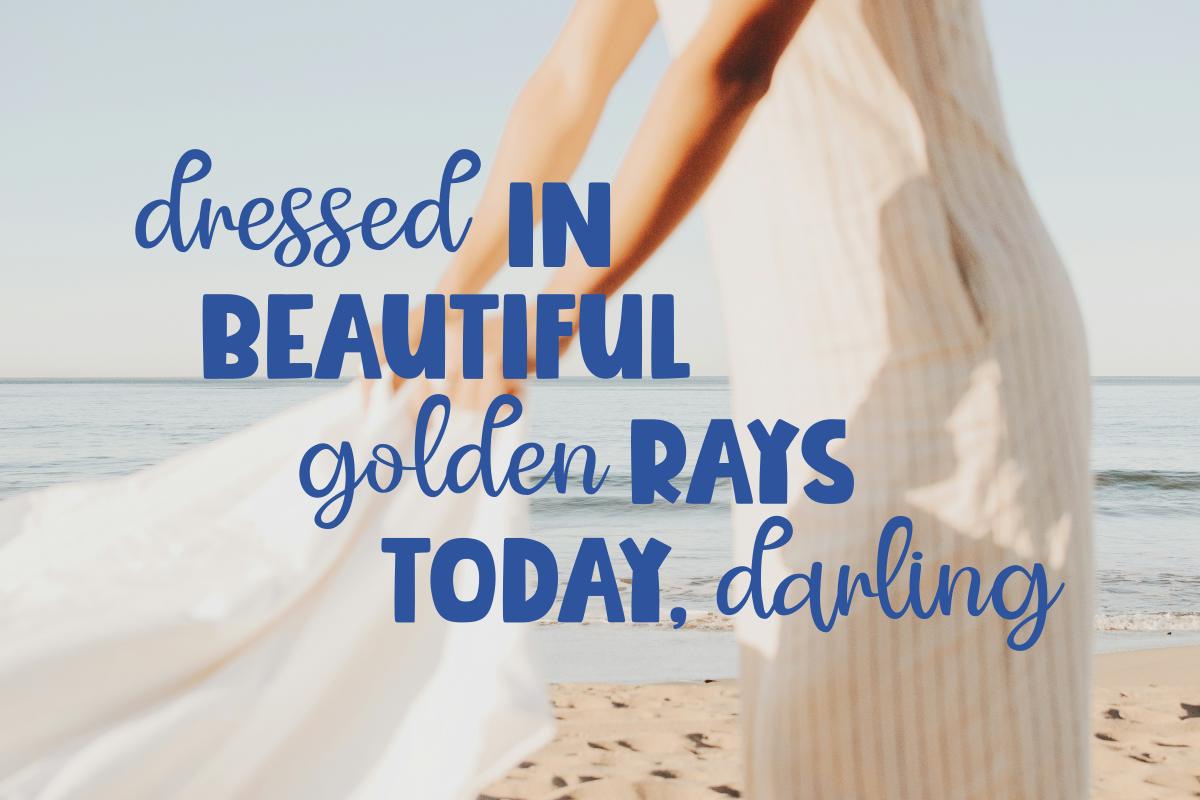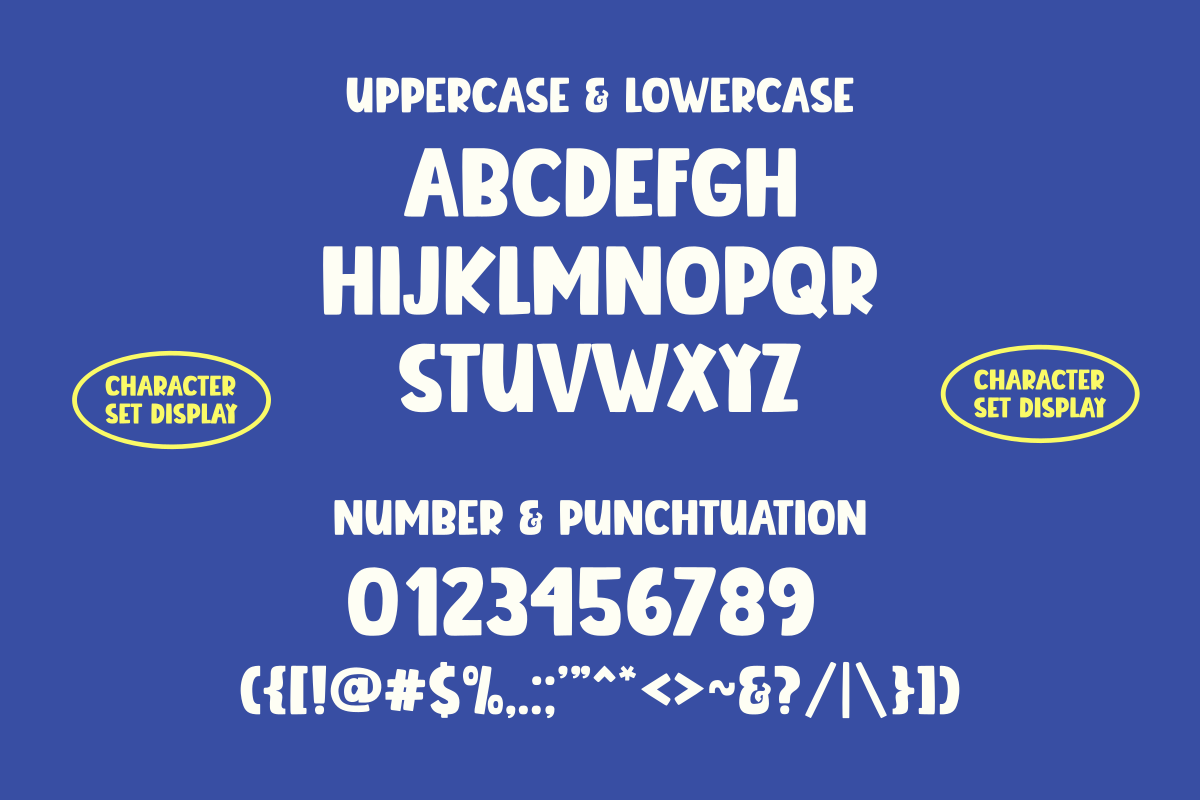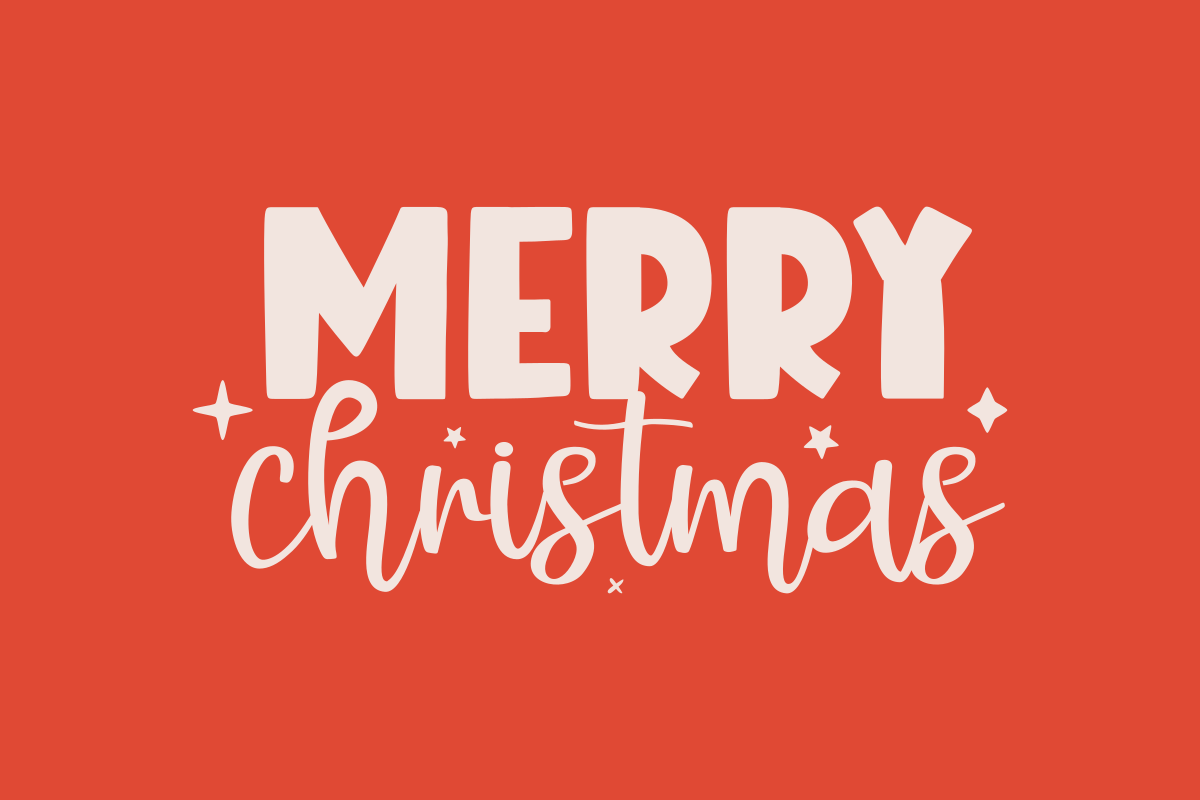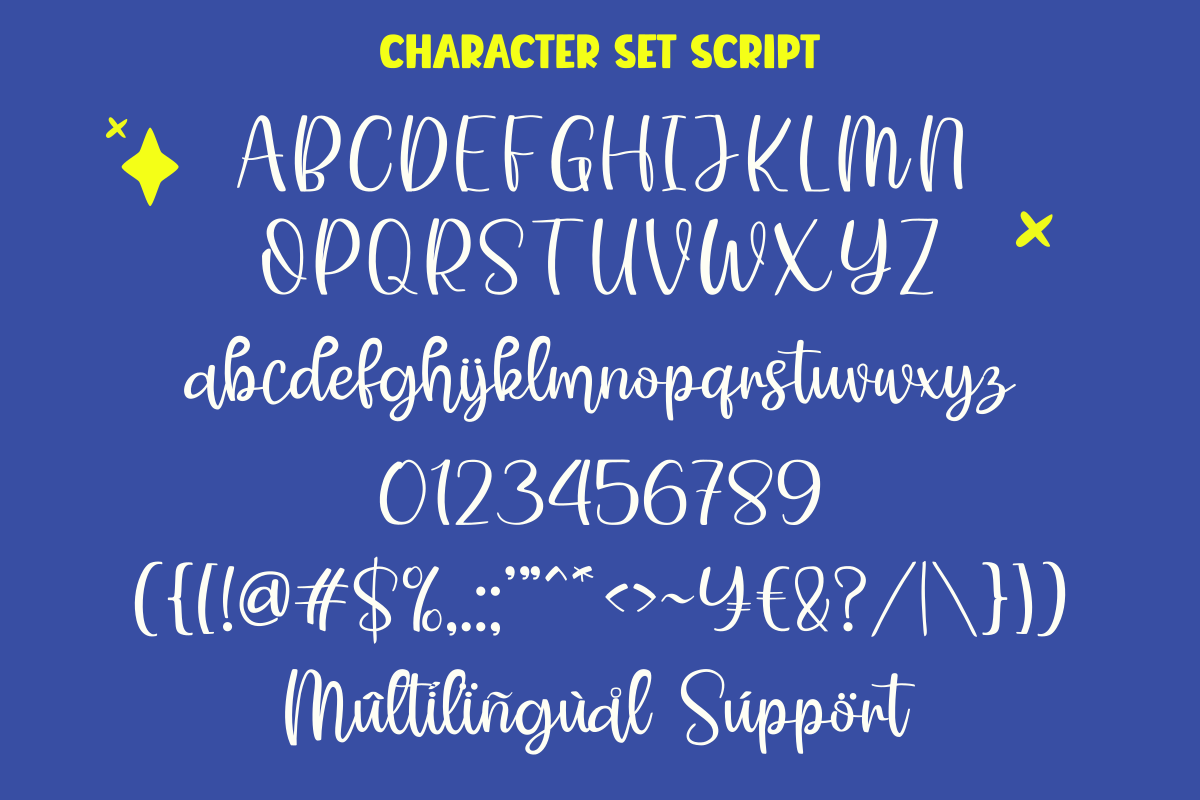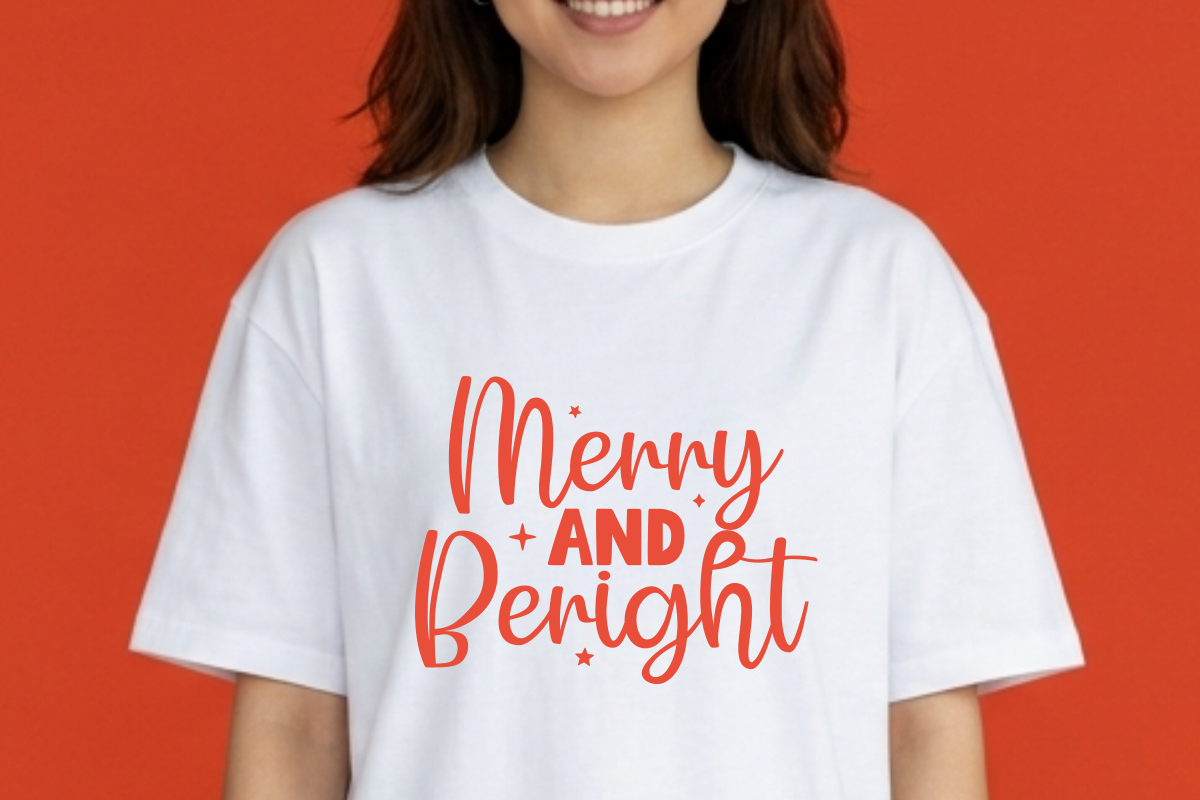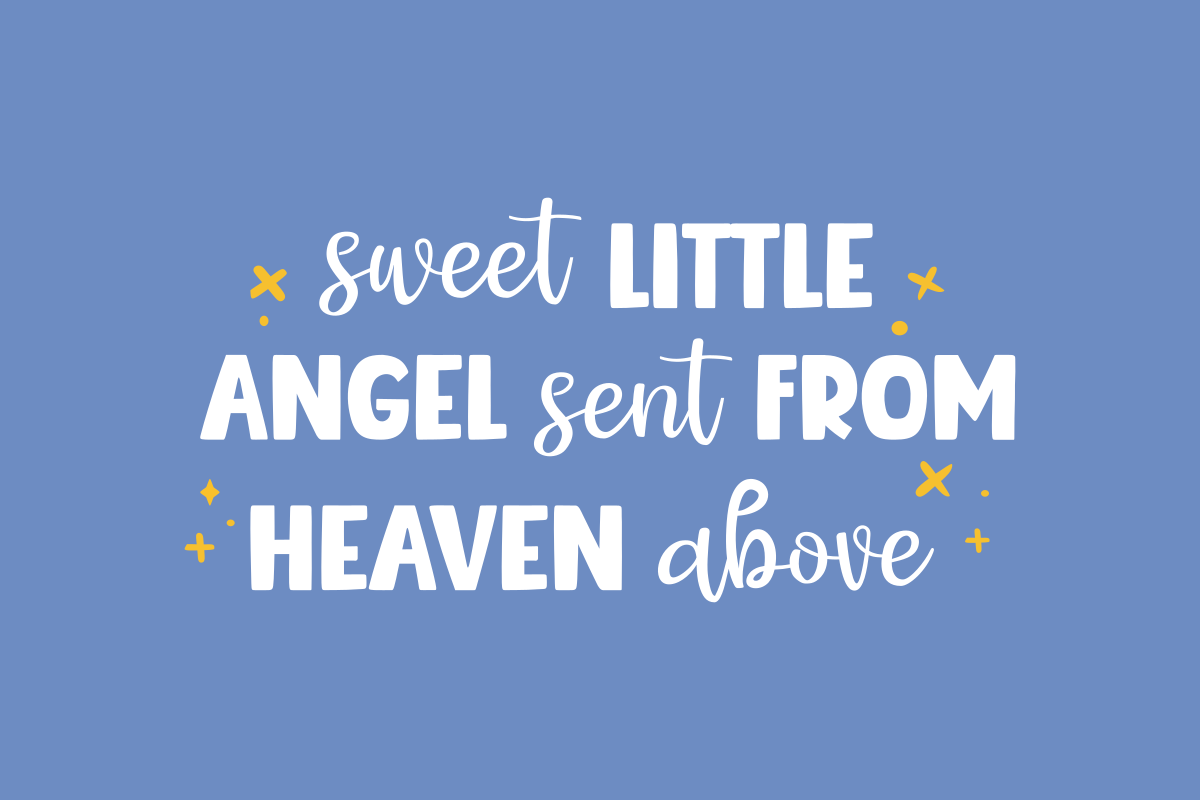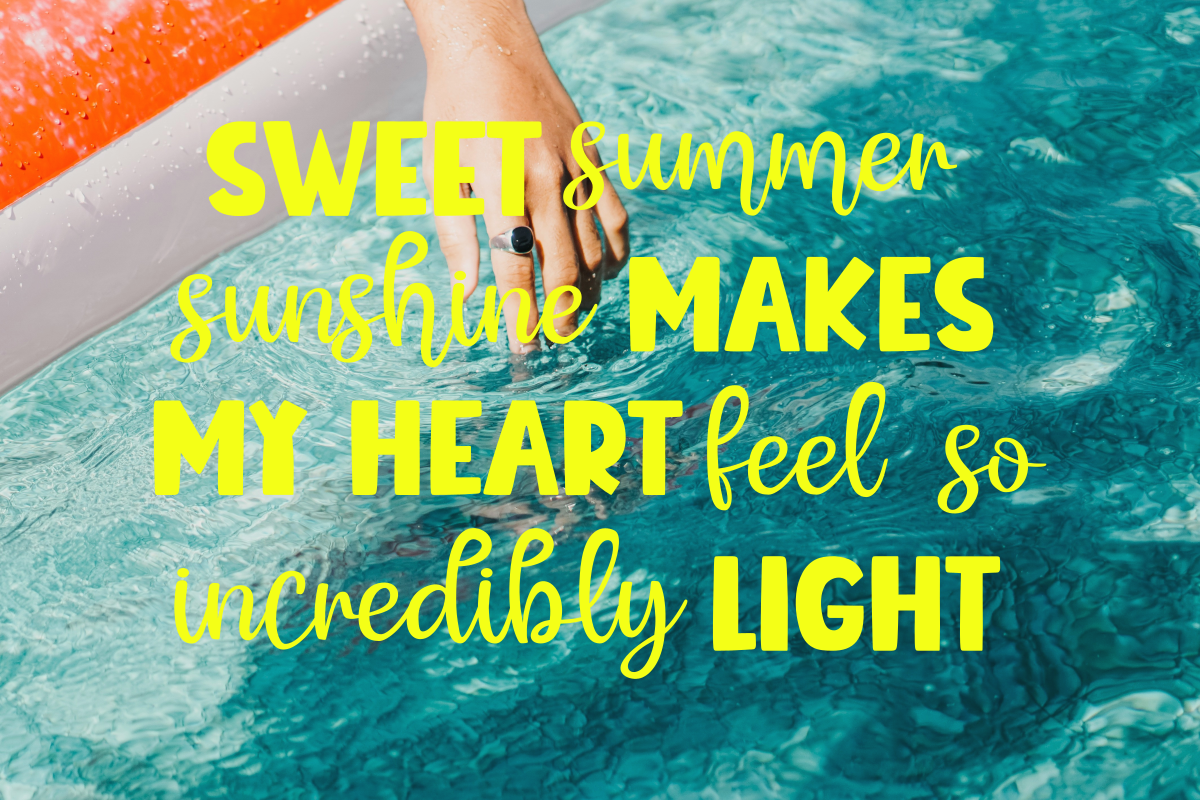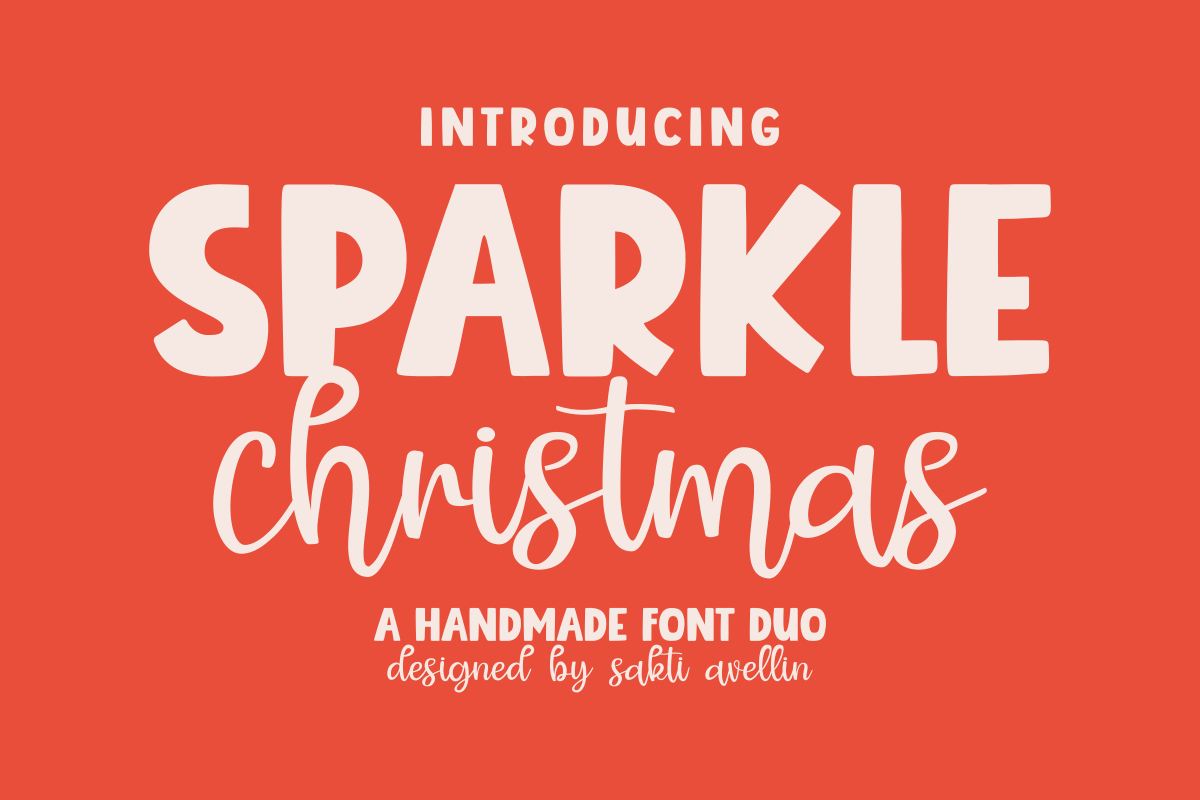
Sparkle Christmas - Display Font Duo
Sparkle Christmas is a festive and charming handmade font duo designed to bring holiday cheer to your creative projects. This pairing features a bold, clean display typeface for "SPARKLE" and a delicate, flowing handwritten script for "christmas," making it an ideal choice for Christmas branding, seasonal invitations, greeting cards, and cheerful holiday crafts. Its balanced and organic aesthetic ensures your designs feel personal, warm, and inviting. Whether you are creating festive packaging, winter apparel, or magical social media graphics, Sparkle Christmas adds a perfect, handcrafted balance to every design.